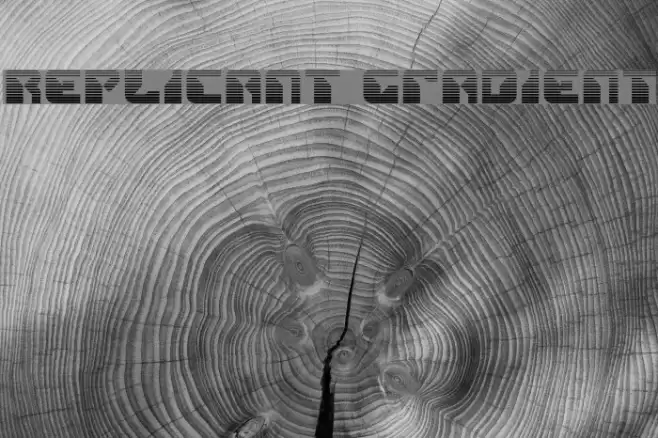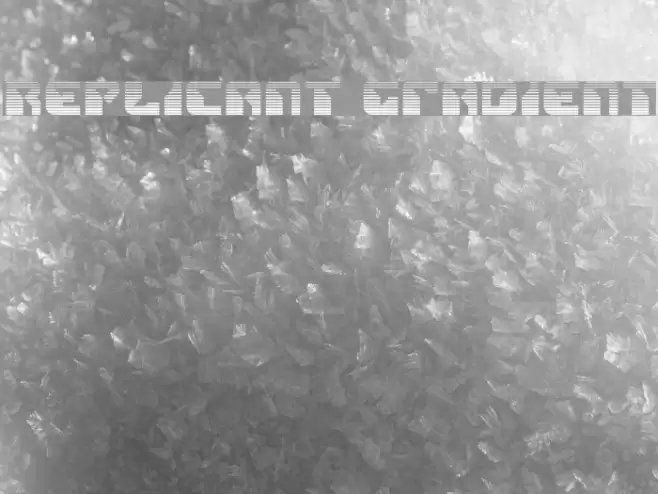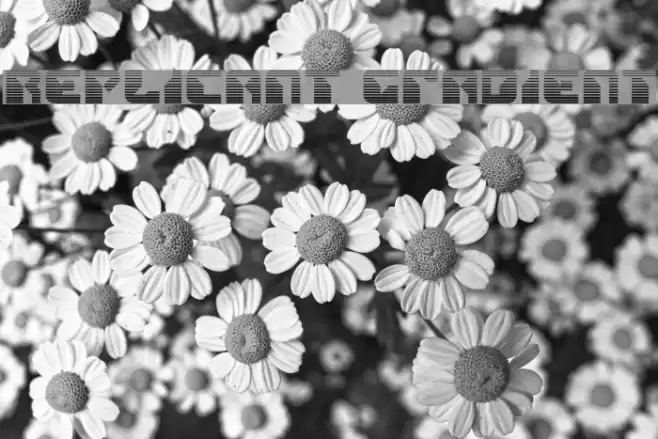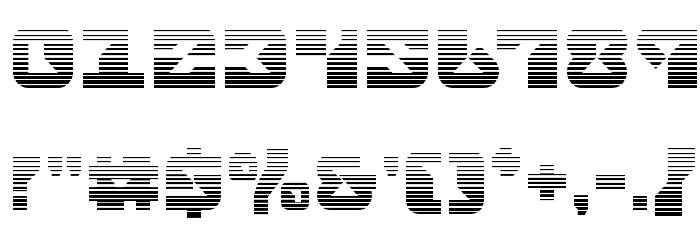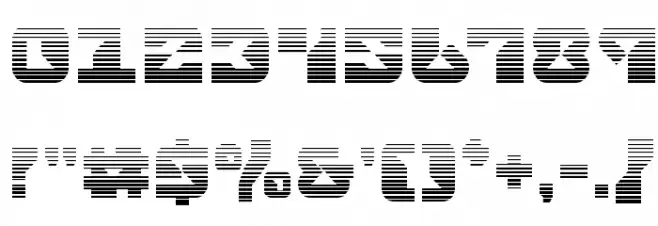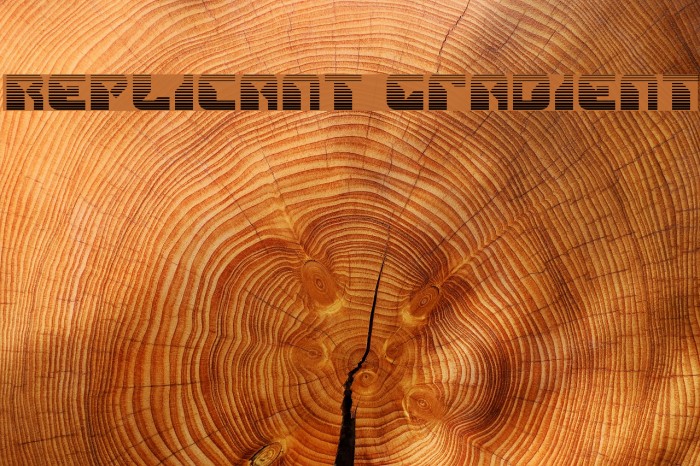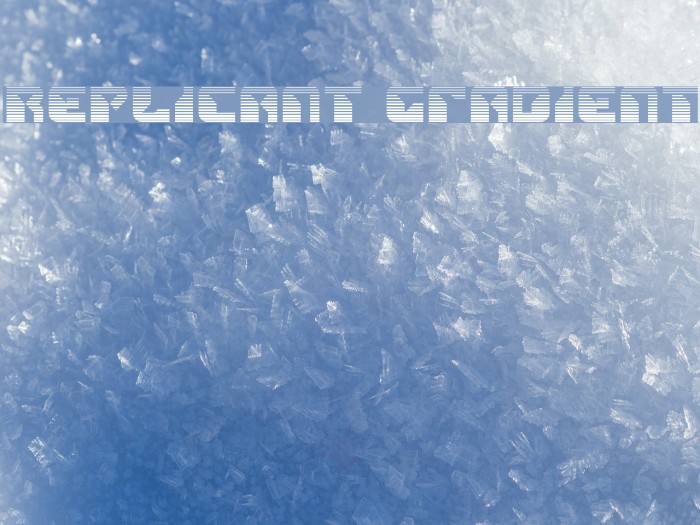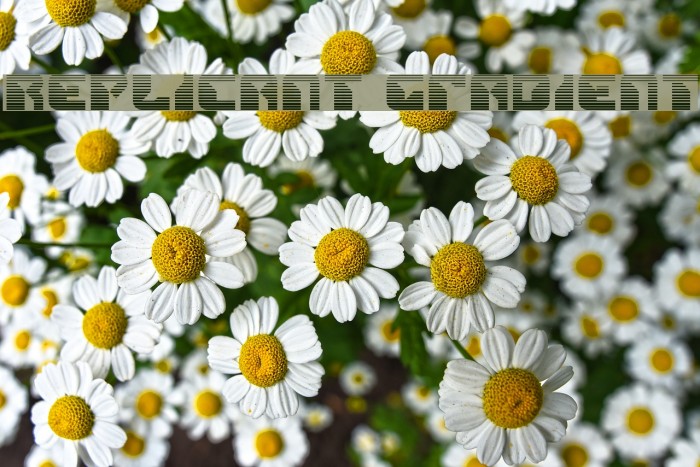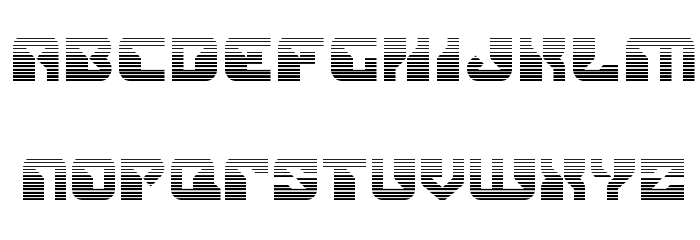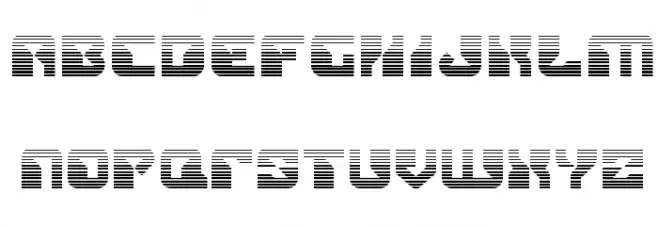
Replicant Gradient Font
Replicant Gradient Description
This font features a futuristic and digital aesthetic, characterized by its unique gradient effect created through horizontal lines. Each character is composed of parallel lines that give a sense of movement and depth, making it stand out with a modern, tech-inspired look. The uppercase and lowercase letters maintain a consistent style, with sharp angles and geometric shapes that enhance its digital feel. Numbers and special characters are designed with the same linear pattern, ensuring uniformity across all glyphs. This font is ideal for projects that require a contemporary and innovative touch.
A futuristic font with a gradient effect created by horizontal lines, offering a modern digital aesthetic from Uncategorized fonts.
- Proposed Projects: Ideal for tech-related branding, digital art projects, futuristic posters, and video game graphics.